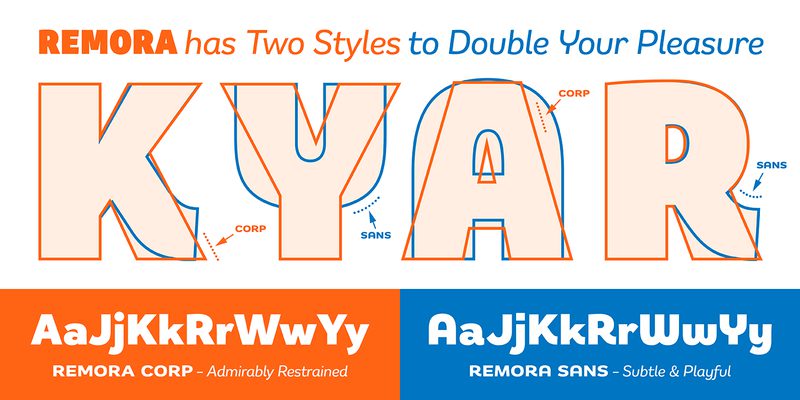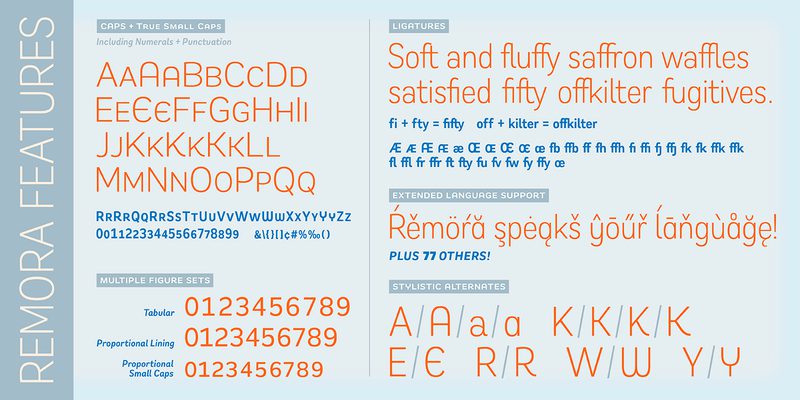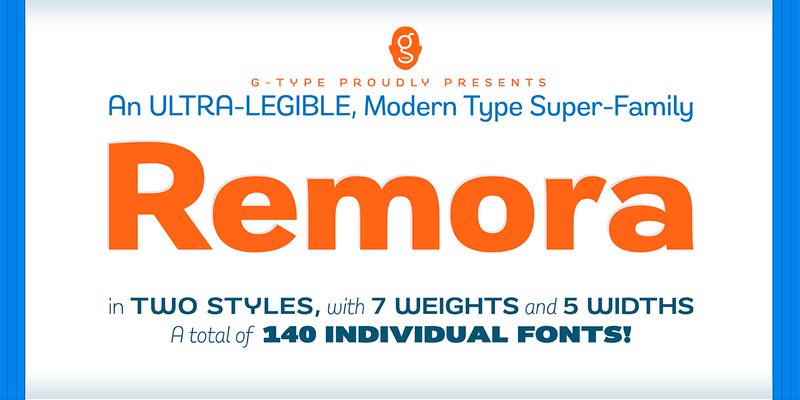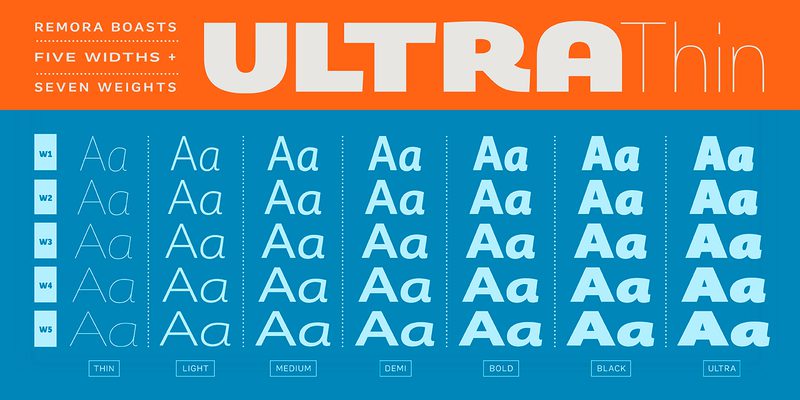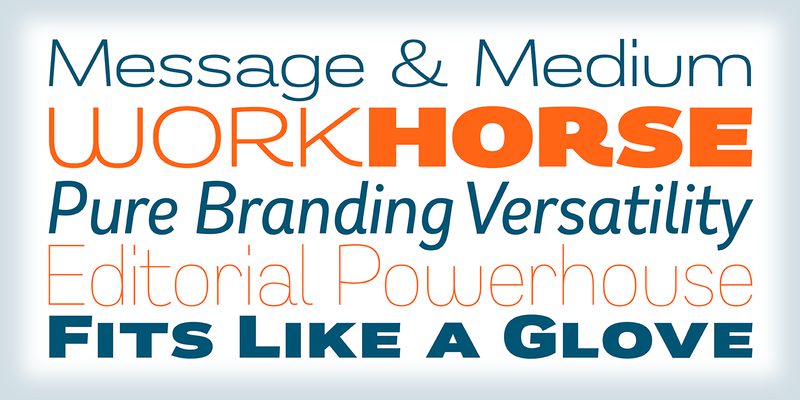
Remora Banners
Designer and typographer Joe Newton has had fun creating a suite of colourful banners showcasing our Remora type system.
Remora is an extensive new humanist sans serif which comes in 2 style variations, the effervescent Remora Sans and its sharp suited business partner Remora Corp. Both styles include 5 individual width sets ranging from the condensed W1 to the extra-wide W5.
Furthermore, with an impressive 7 weights (Thin to Ultra) and true matching italics in each pack Remora is an ultra versatile super family comprising 140 individual fonts, perfect for any typographic assignment or design brief.